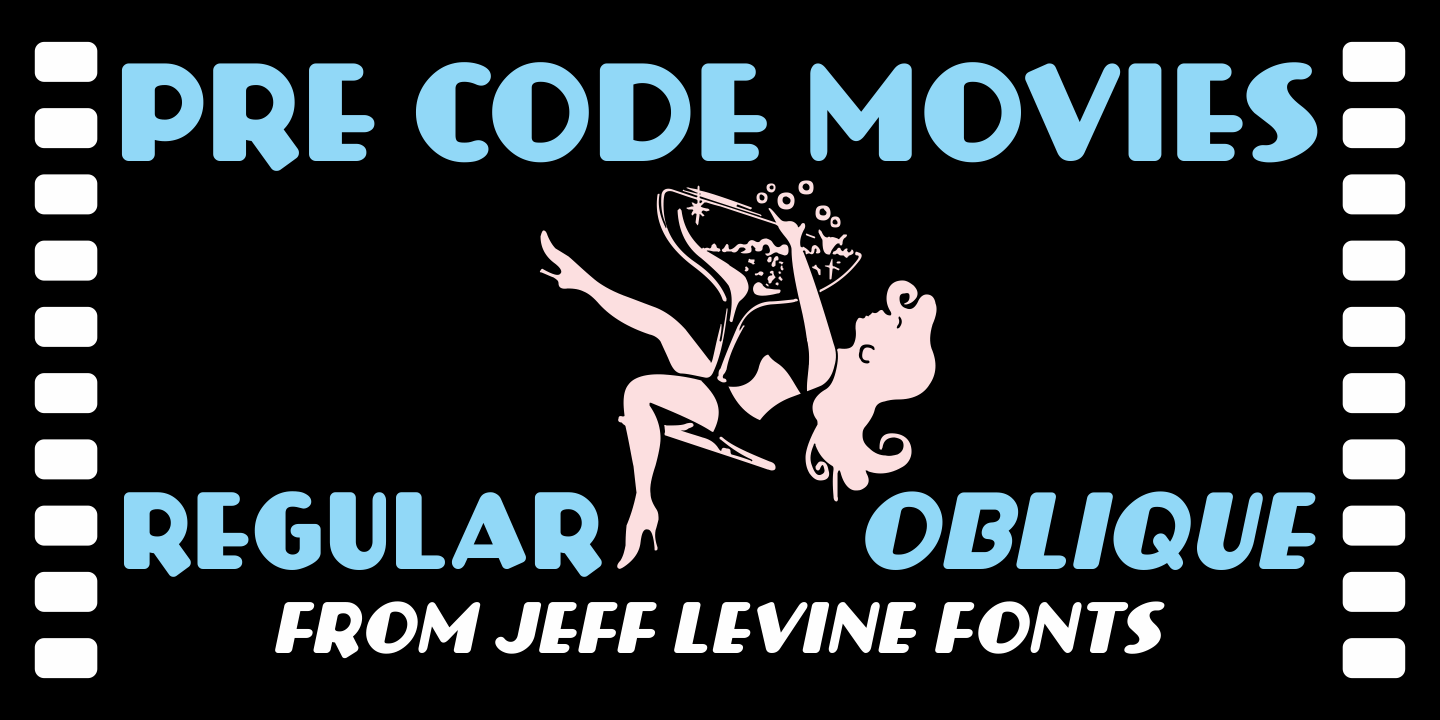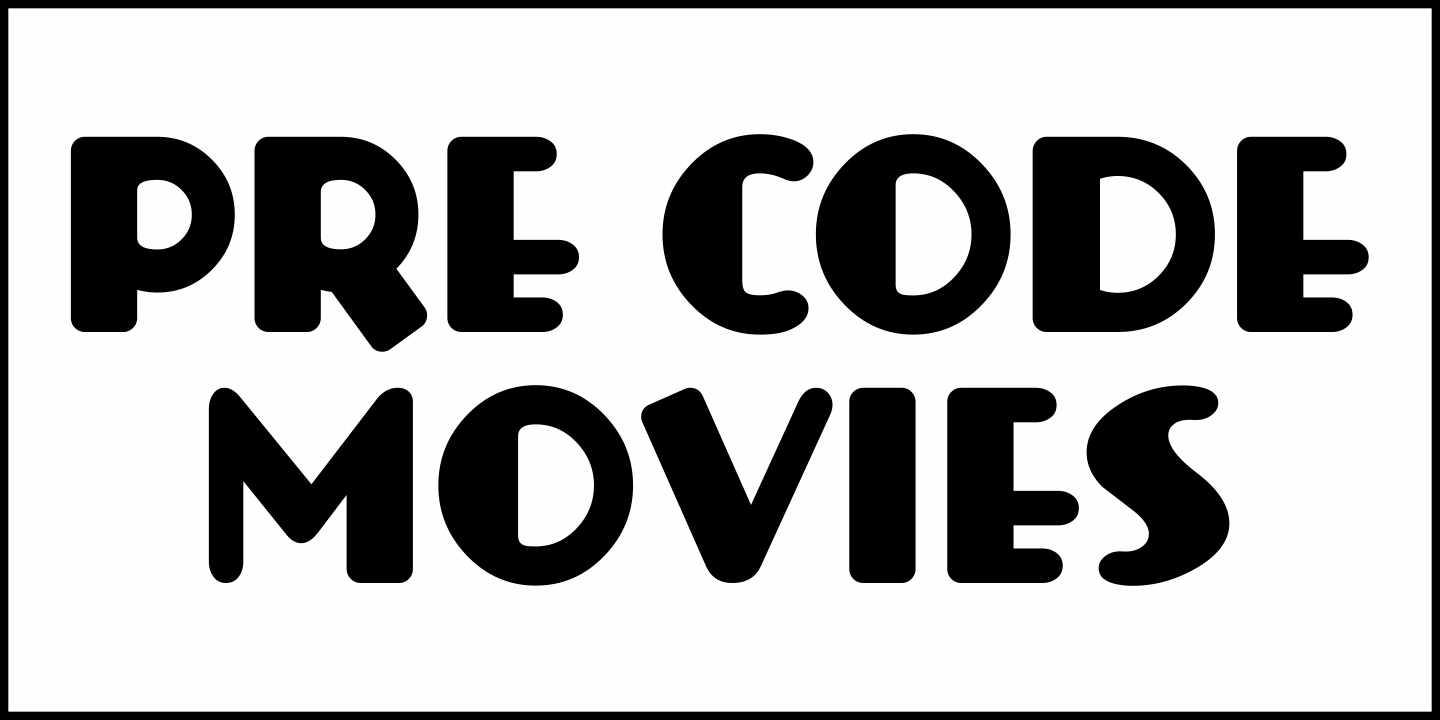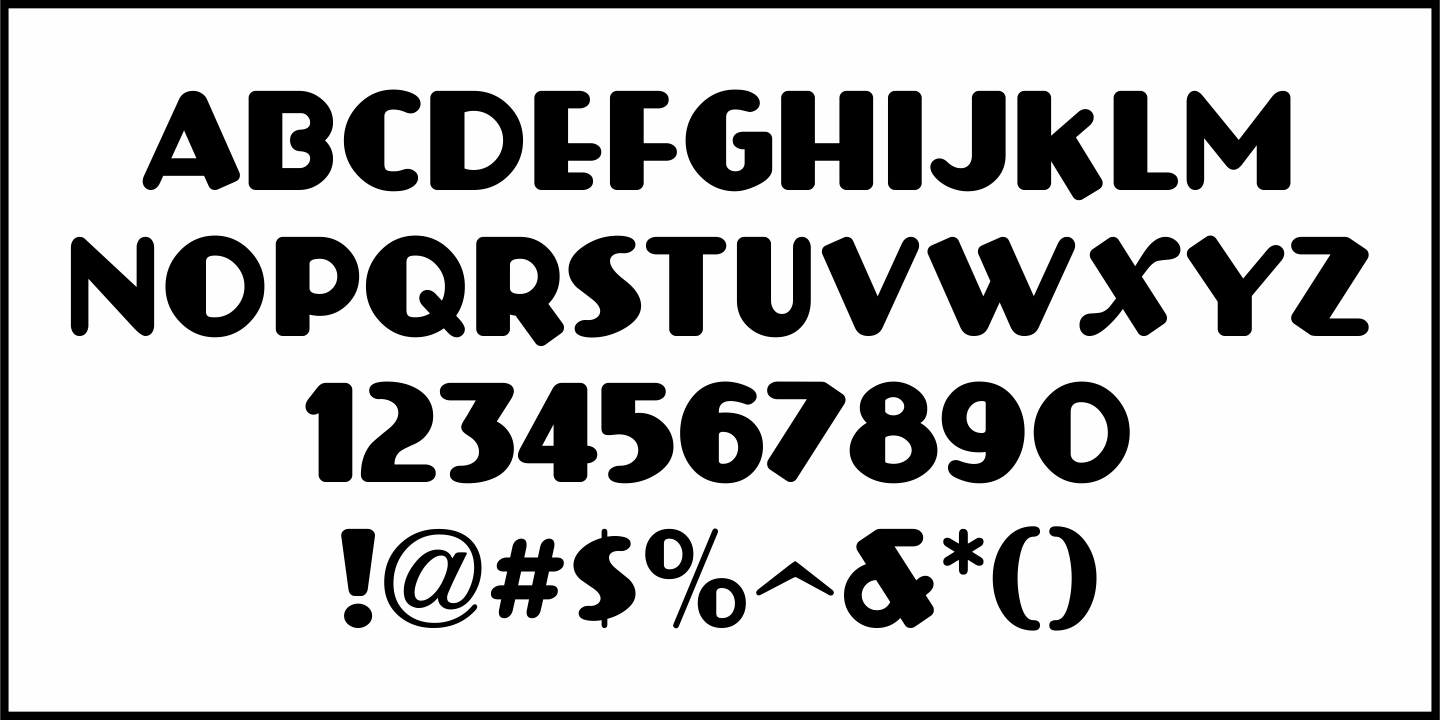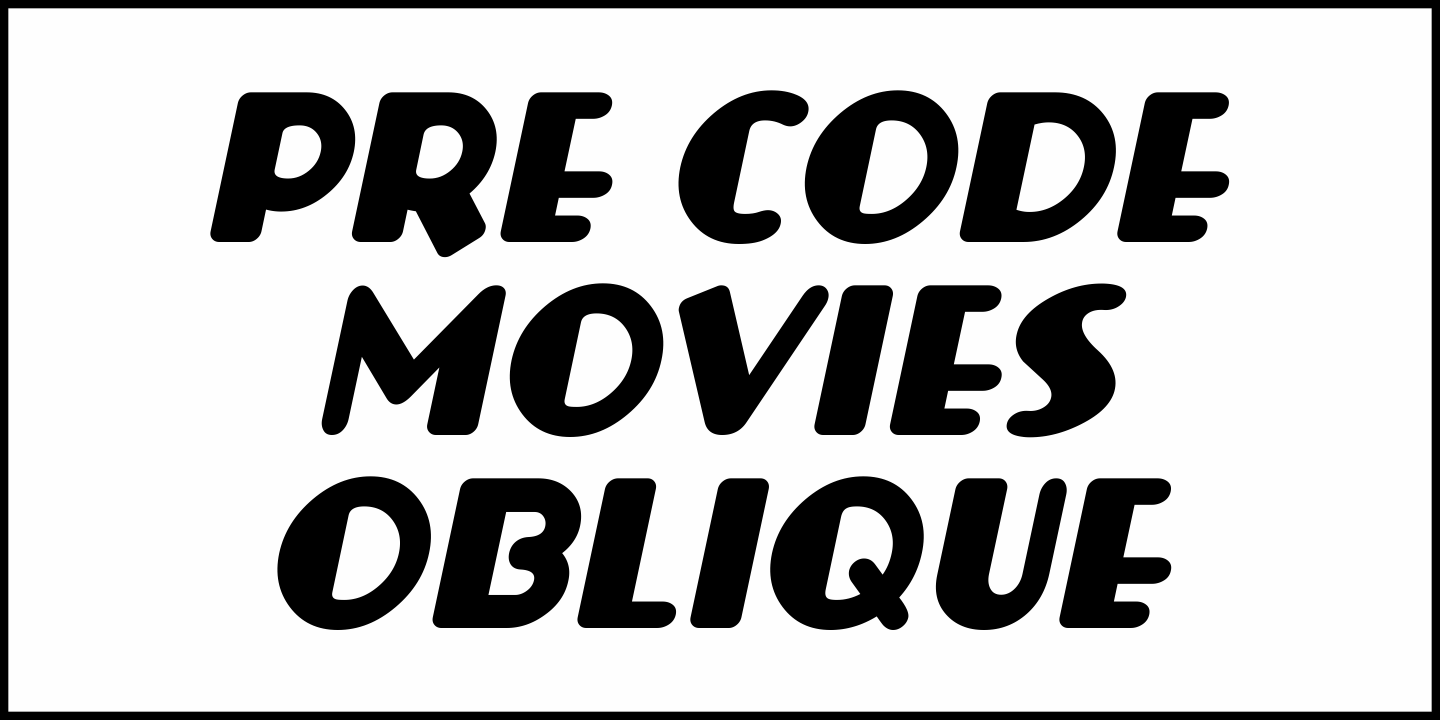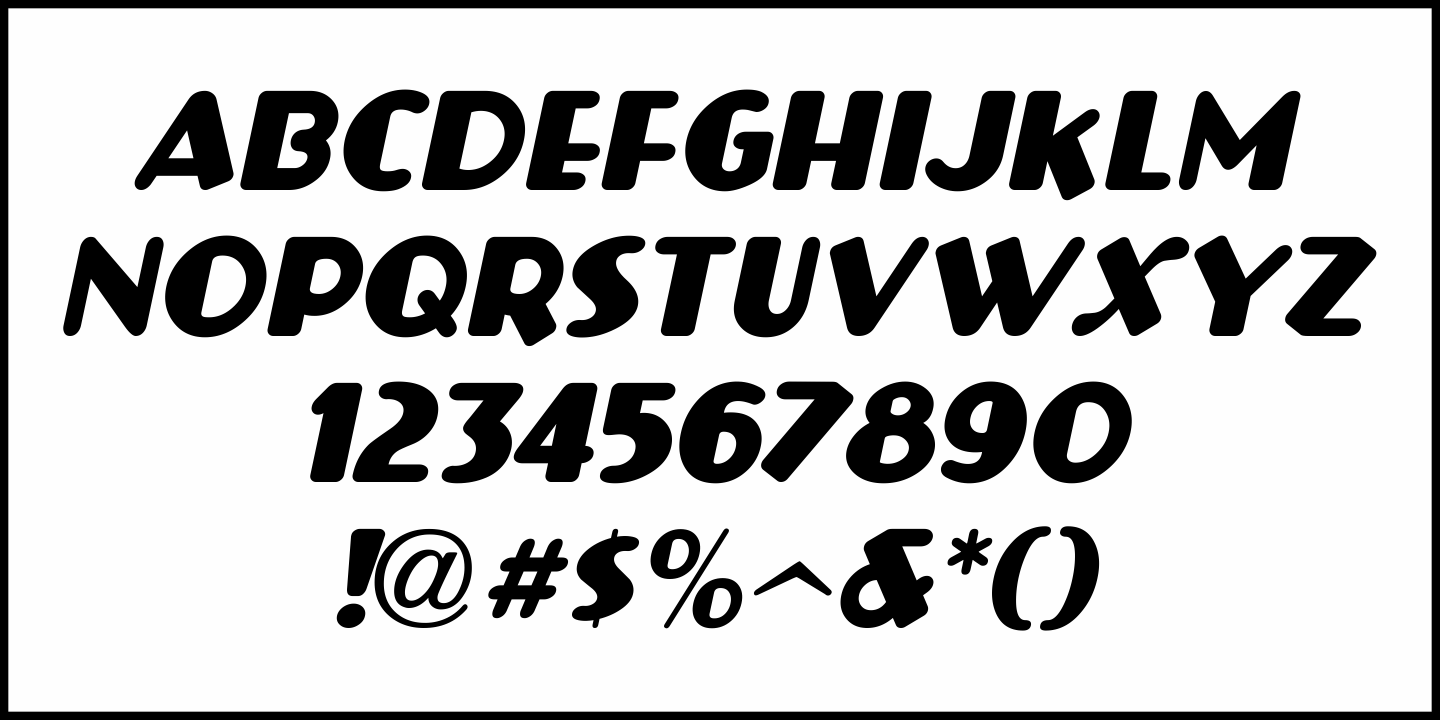
Pre Code Movies
The hand lettered credits from the 1931 melodrama 'Safe in Hell' inspired the typeface Pre Code Movies JNL, which is available in both regular and oblique versions.
The design is strongly influenced by the popular Art Deco style of thick-and-thin characters and also features rounded corners.
The font's name comes from the early era of talking pictures and the short period before the establishment of the Hays Office in 1934 when Hollywood did not self-censor itself. Many then-taboo topics were exploited on film until Will Hays cracked down on such productions.